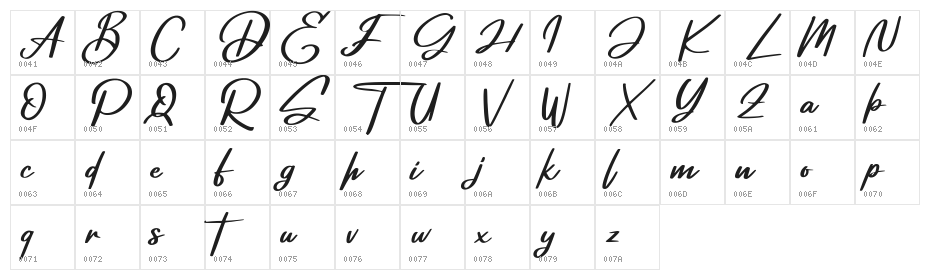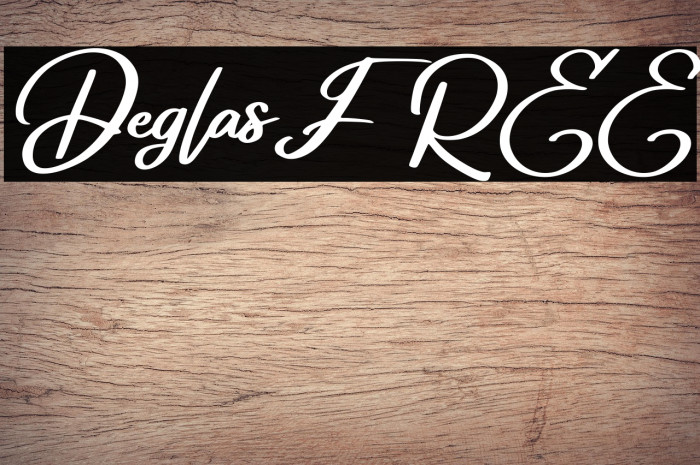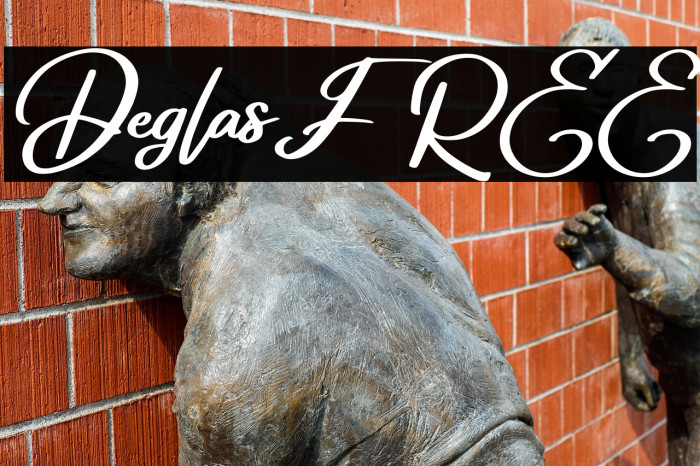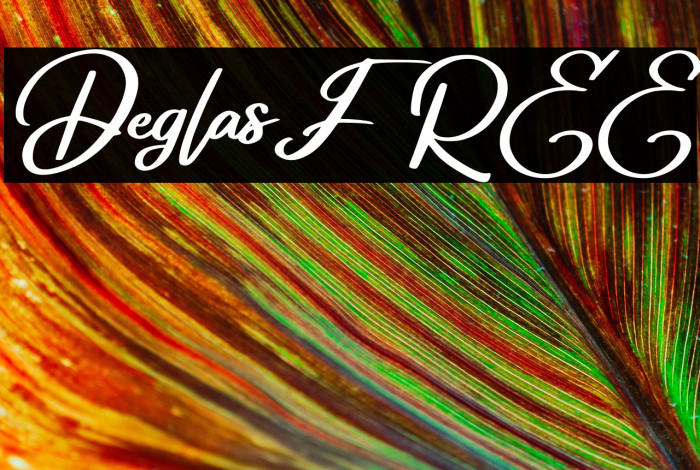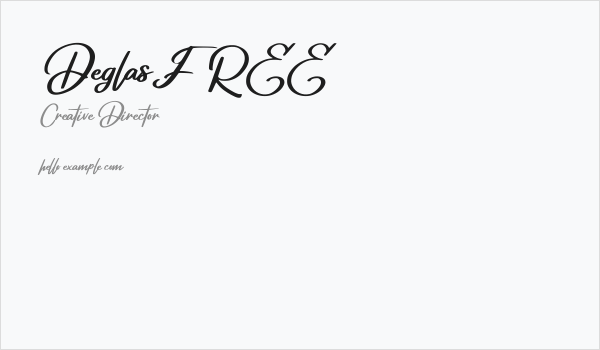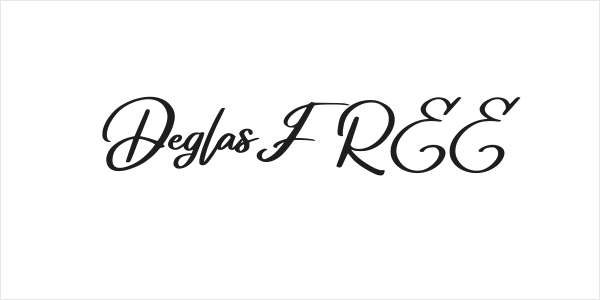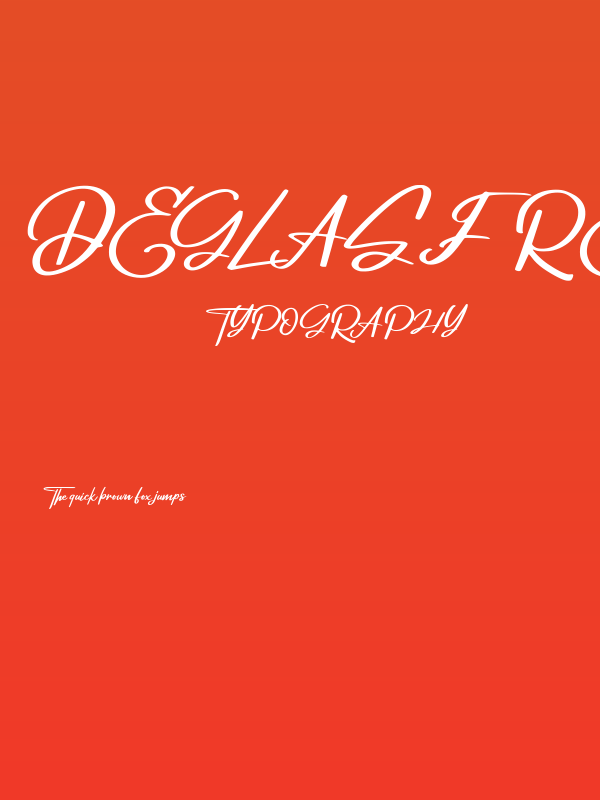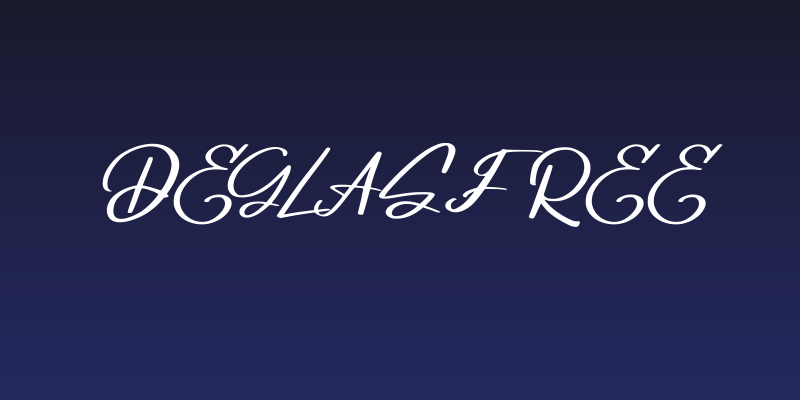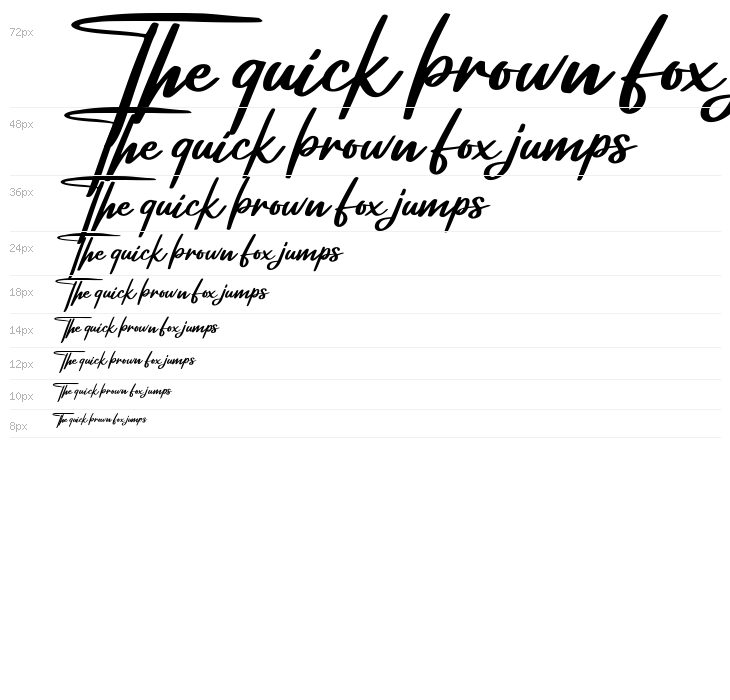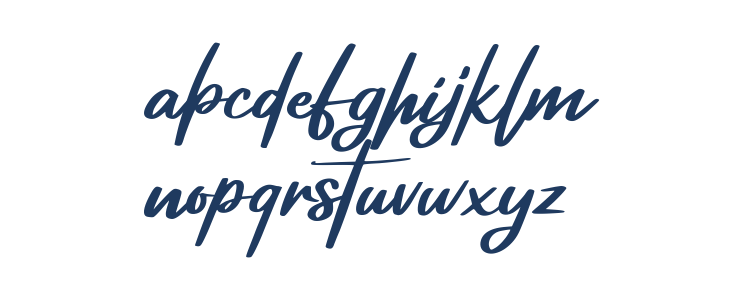
Deglas FREE Font
Deglas FREE Description
This font features a dynamic and expressive script style, characterized by its fluid and elegant letterforms. The uppercase letters exhibit a graceful flow with a slight slant, while the lowercase letters maintain a consistent rhythm and balance. The strokes vary in thickness, adding a sense of movement and energy to the text. The font's overall appearance is both sophisticated and approachable, making it suitable for a variety of creative applications. The special characters are seamlessly integrated, maintaining the font's cohesive aesthetic.
| Proposed Projects | Ideal for wedding invitations, branding, logo design, and artistic projects requiring a personal touch. |